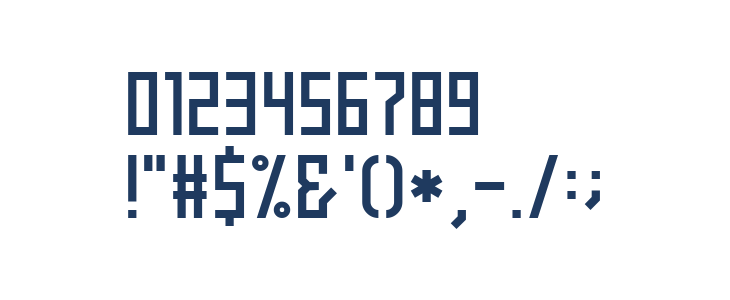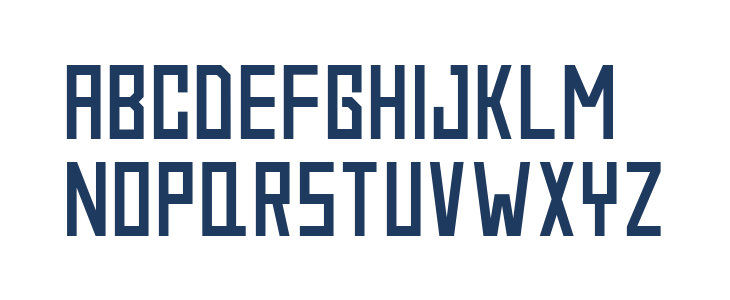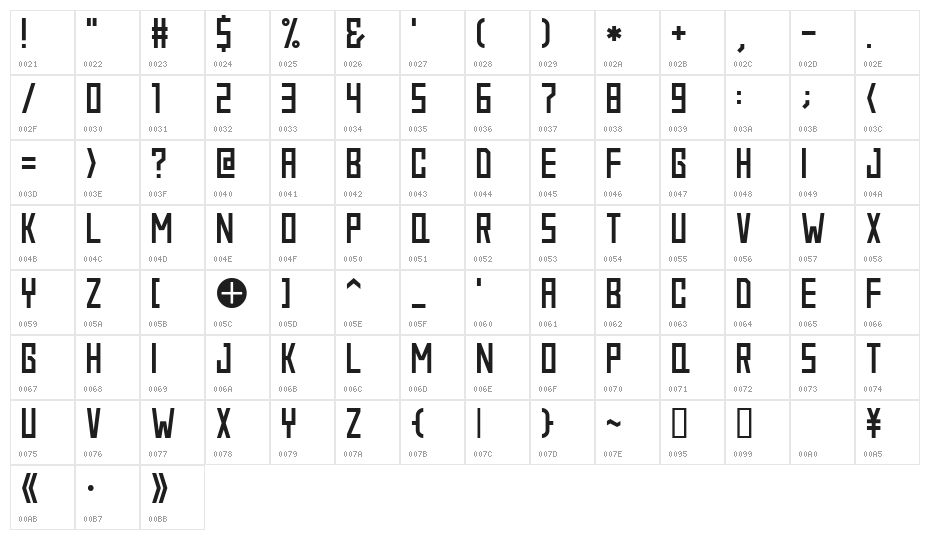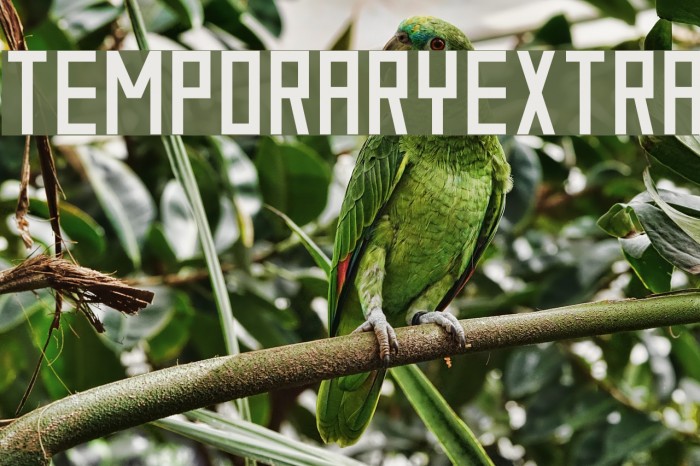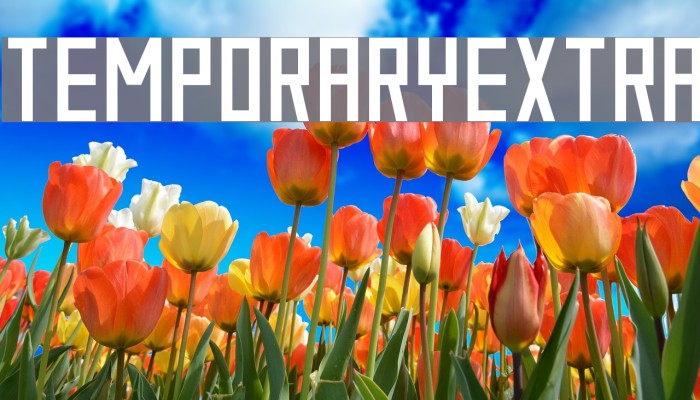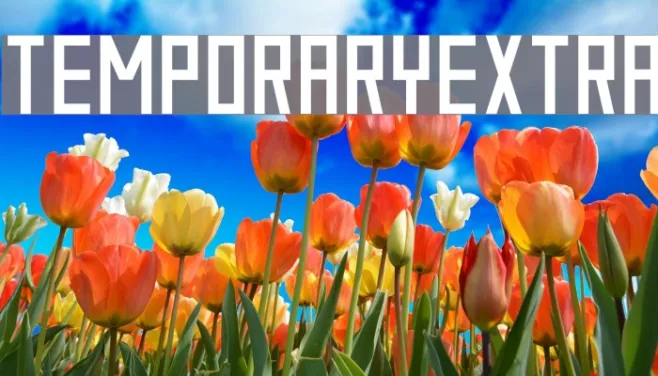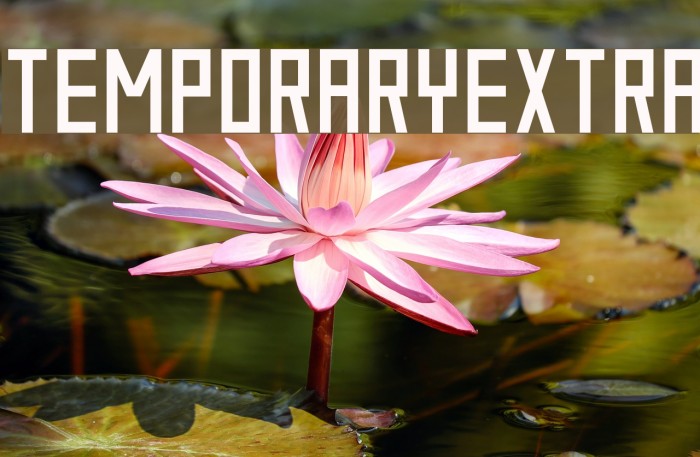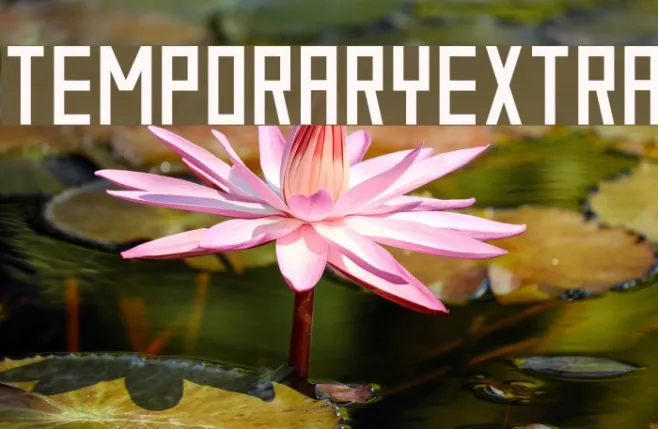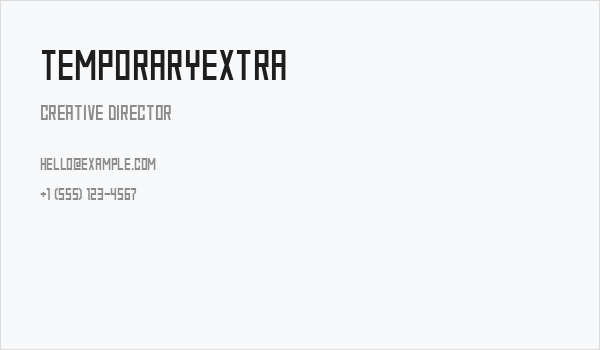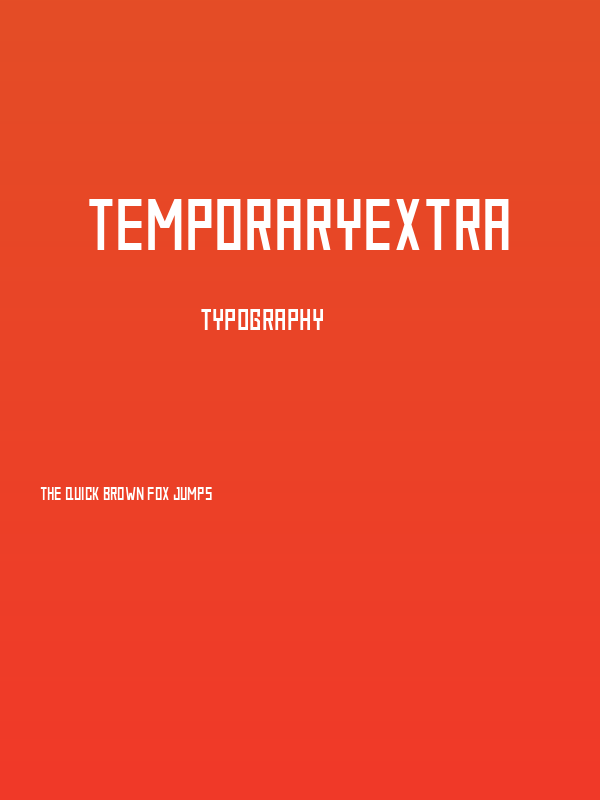
TemporaryExtra Font
TemporaryExtra Description
This font features a bold, geometric design with a strong emphasis on straight lines and sharp angles. The characters are uniformly constructed, giving a sense of balance and symmetry. The uppercase letters are particularly striking, with a blocky appearance that commands attention. The lowercase letters maintain the same geometric style, ensuring consistency across the typeface. Numbers and special characters are designed with the same boldness and precision, making them easily readable. The overall aesthetic is modern and industrial, suitable for projects that require a strong visual impact.
| Proposed Projects | Ideal for branding, posters, headlines, and any design needing a bold, impactful typeface. |